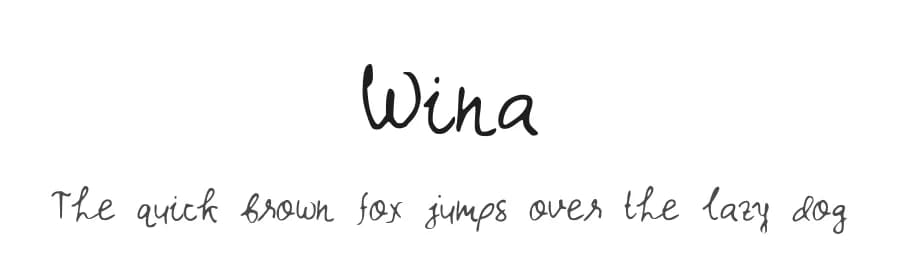
About Wina Font
It is my second conversion attempt from real person handwriting to become digital font. Hope you like it!
Wina font is a semi cursive font that feature variable x-height and a touch of randomized curve to retain hand-made looks.
Use of proper kerning is very essential!
Wina Font